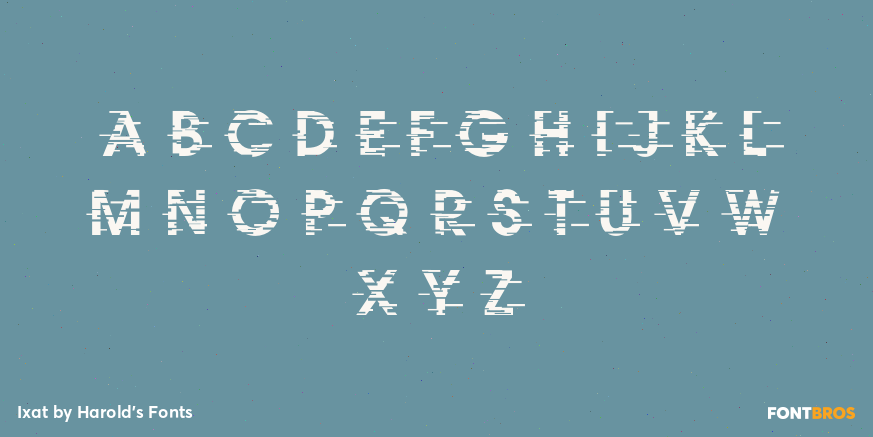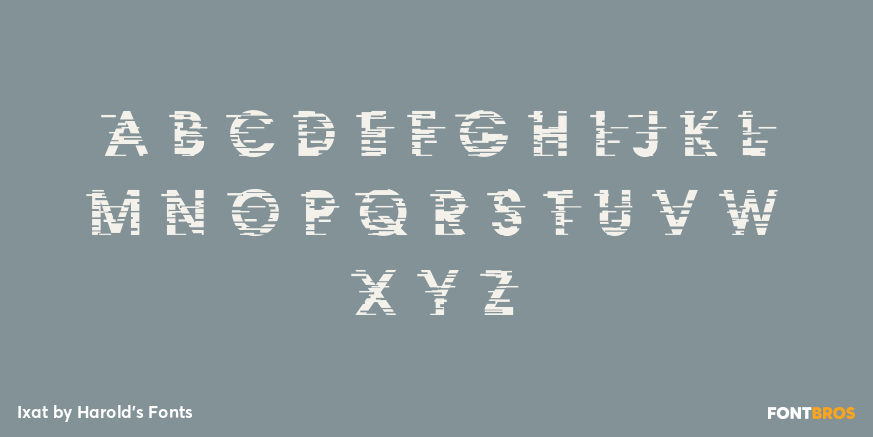
Ixat
Font Family by Harold's Fonts
IXAT is a pair of bold sans-serif fonts that look like they are in motion or affected by glitches. IXAT MINUS has white streaks removed from the letters as in the top 3 lines of the illustration; IXAT PLUS (bottom 3 lines) adds black streaks for even more of a good thing. All caps, but there are 2 of each letter for a more random feel, and the two fonts can be intermixed.
Ixat Minus
Ixat Plus